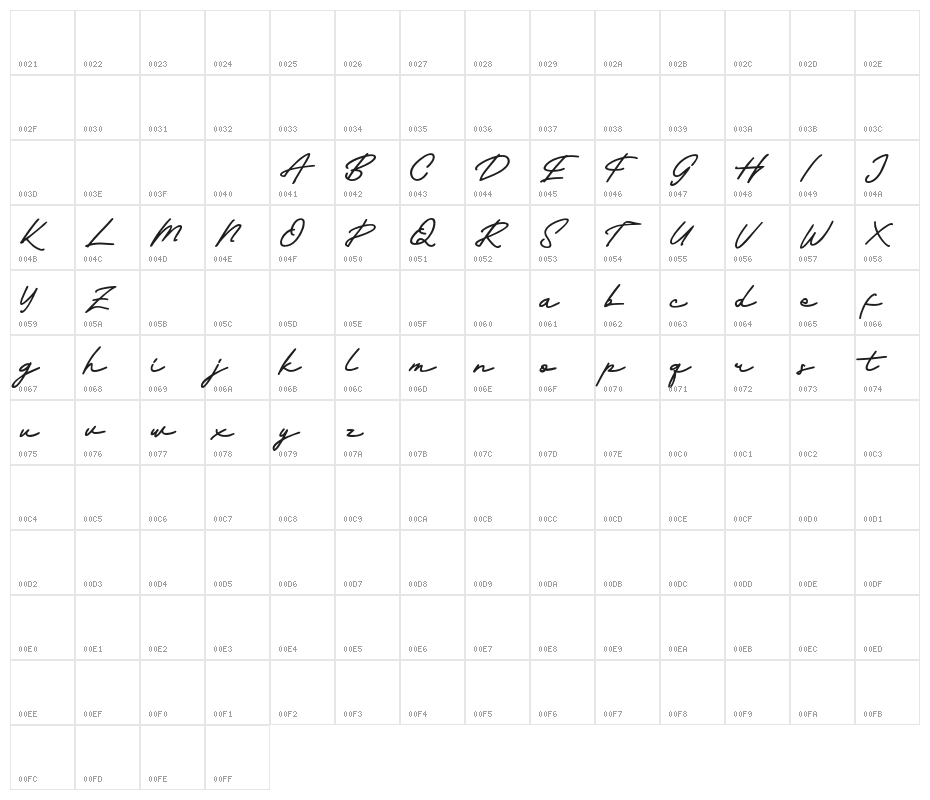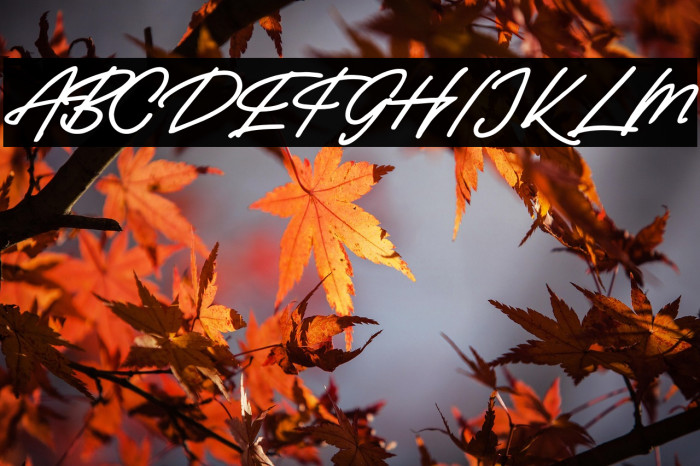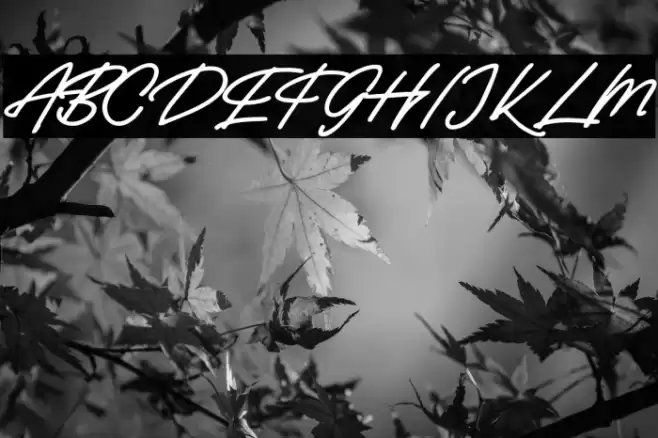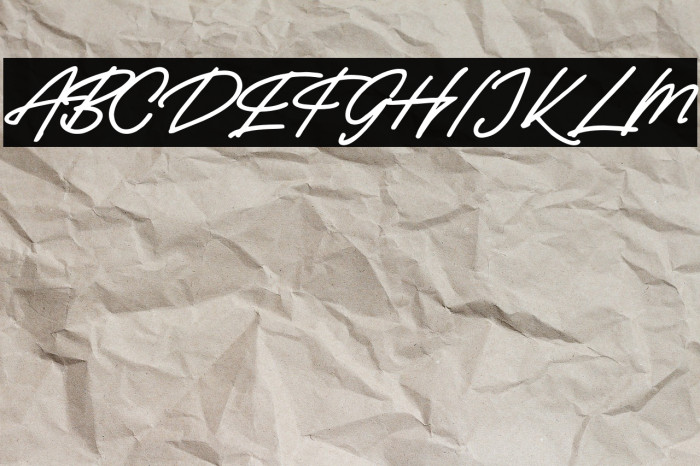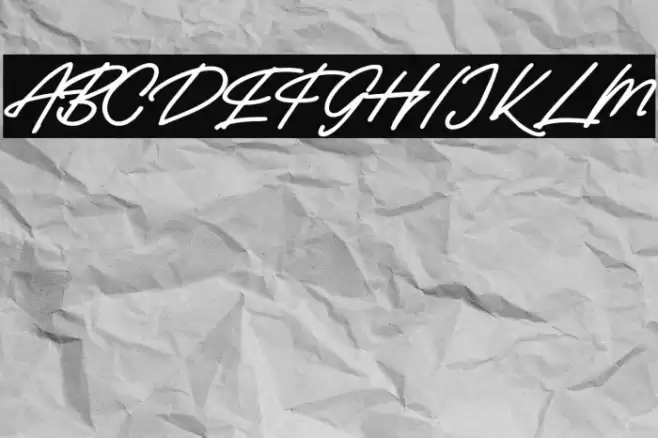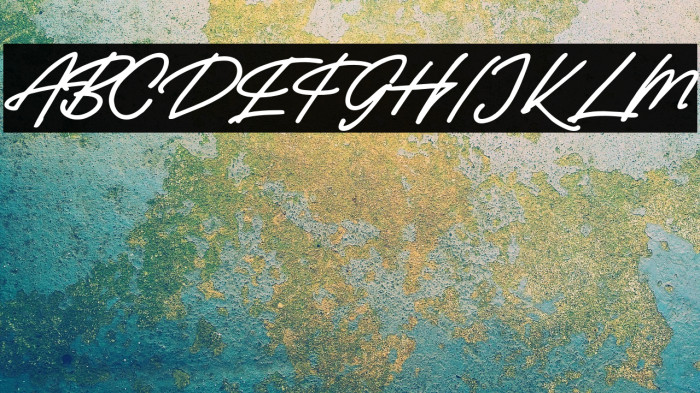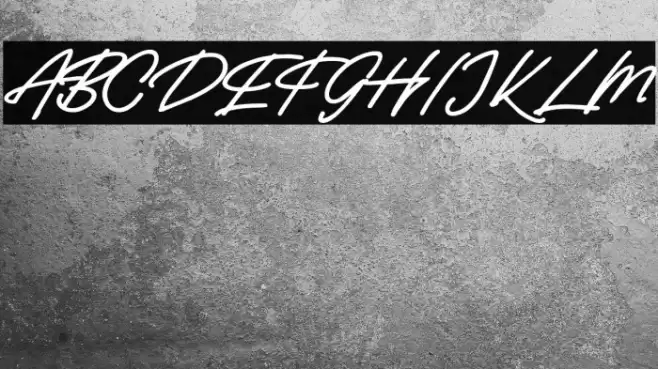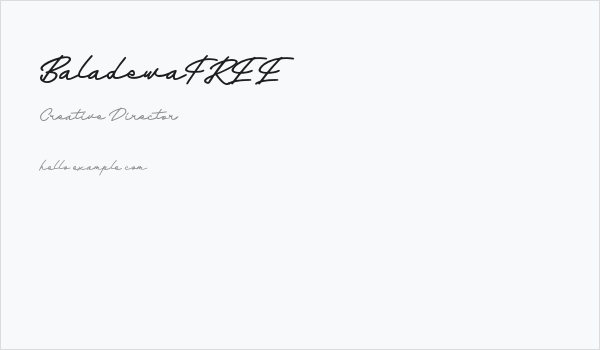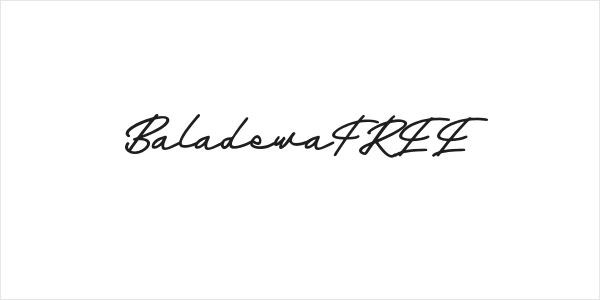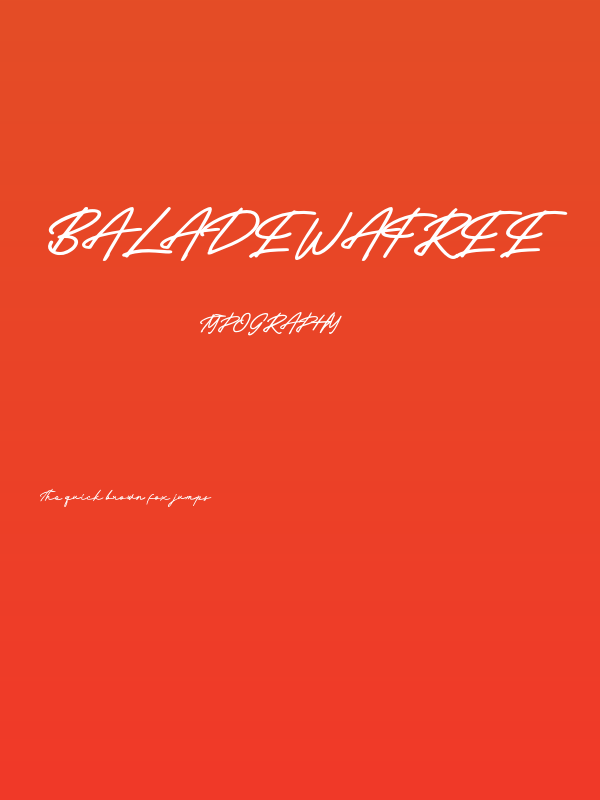
BaladewaFREE Font
BaladewaFREE Description
This font exudes a fluid and elegant handwritten style, characterized by its smooth, flowing lines and cursive script. The letters are connected, creating a seamless and continuous look that mimics natural handwriting. The uppercase letters maintain a consistent height, while the lowercase letters are slightly smaller, adding to the authentic handwritten feel. The strokes are moderately thick, providing a balanced contrast that enhances readability while maintaining a stylish appearance. This font is ideal for projects that require a personal touch, such as invitations, greeting cards, or branding materials that aim to convey warmth and personality.
| Overall Style | Elegant, Personal |
| Proposed Projects | Ideal for invitations, greeting cards, personal branding, and any project needing a personal touch. |